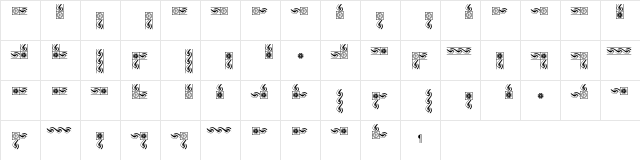
Borders Karnak Regular
Design Context for Borders Karnak Typeface
Borders Karnak is a composed and adaptable typeface that performs quietly and consistently across a wide range of design contexts.